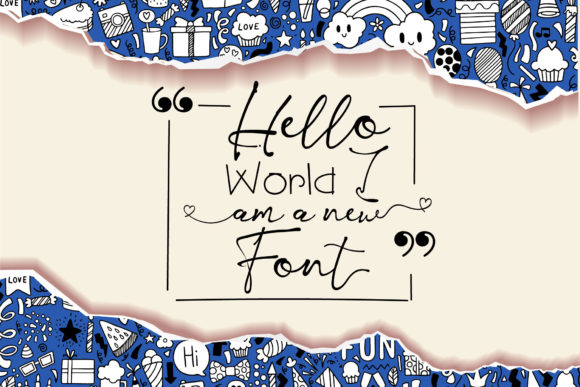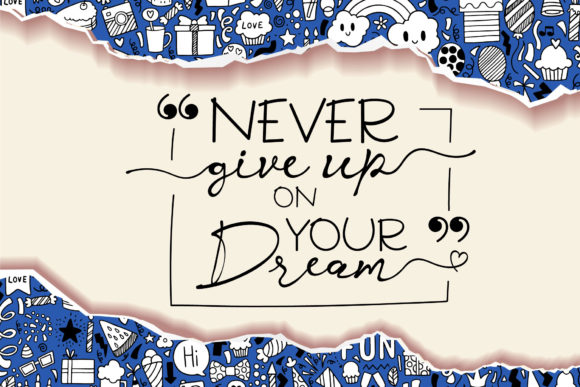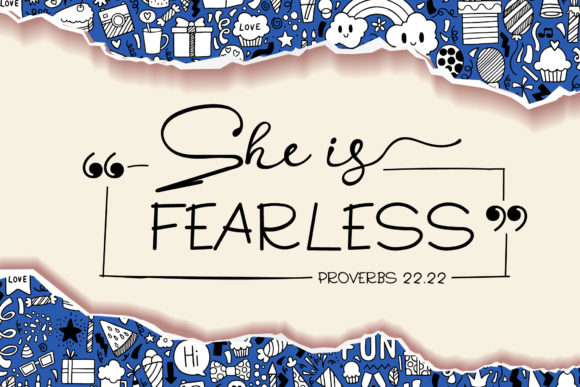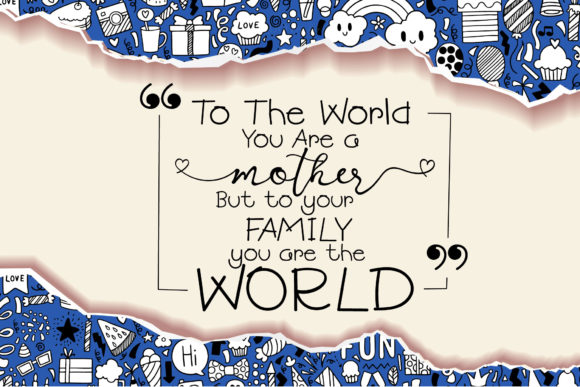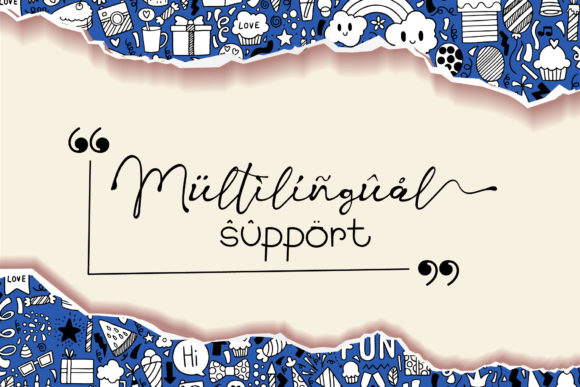
Introduction to Nobu Collections Font
Nobu Collections is an elegant and modern duo handwritten font.
It looks beautiful on a variety of designs requiring a personalized style, such as wedding invitations, thank you cards, weddings, greeting cards, logos and so on This font is PUA encoded, which means you can access all of the glyphs and swashes with ease.
Nobu Collections Font offers exceptional quality and versatility, making it a valuable addition to your design toolkit. Whether you’re creating for personal projects or commercial use, Nobu Collections Font delivers professional results.